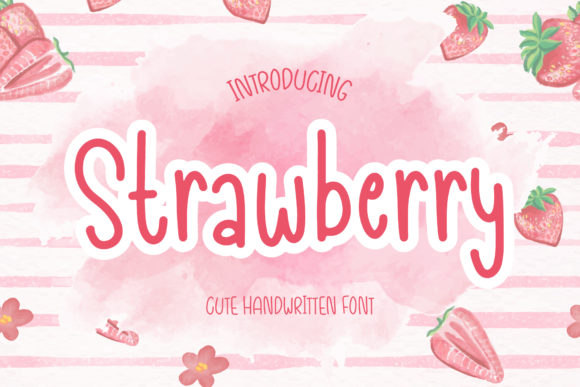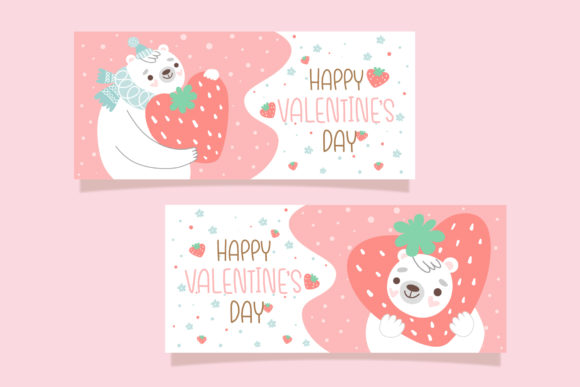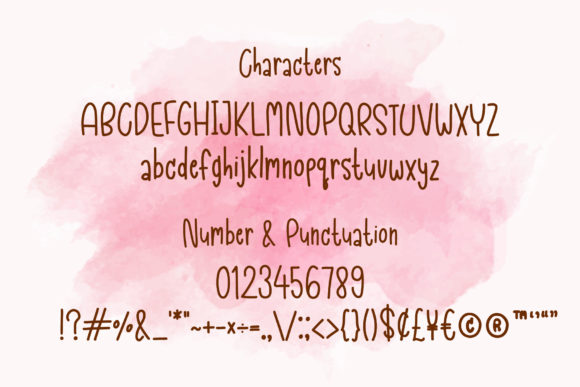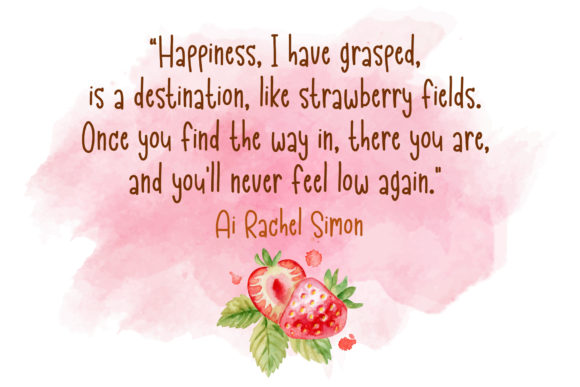
About Strawberry Font
Strawberry is a fund and sweet handwritten font. It maintains its classy calligraphic influences while feeling contemporary and fresh. This versatility will appeal to a wide range of crafty ideas, from letterheads and titles, to stationery.